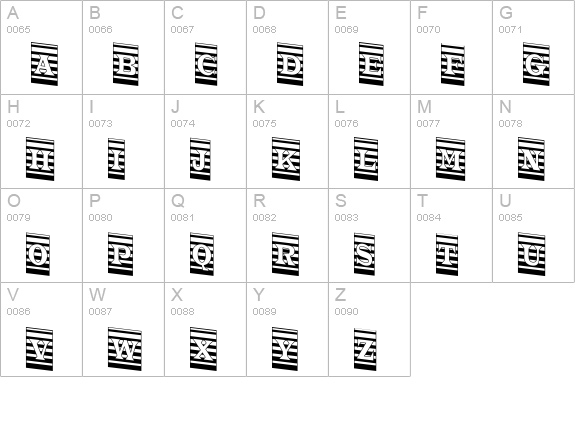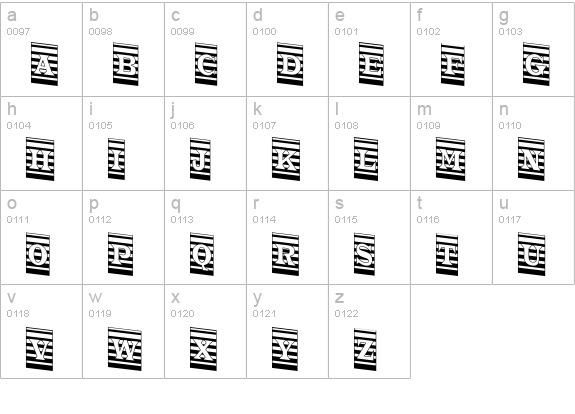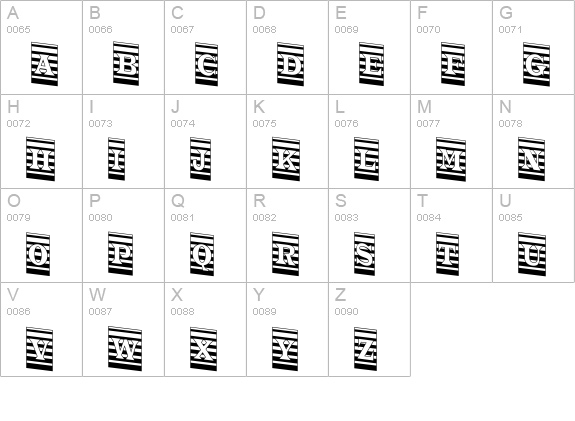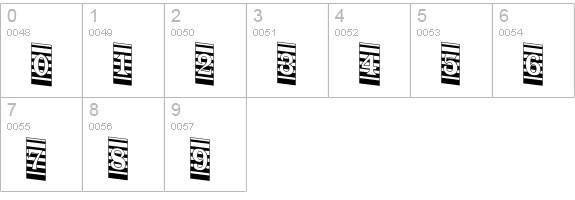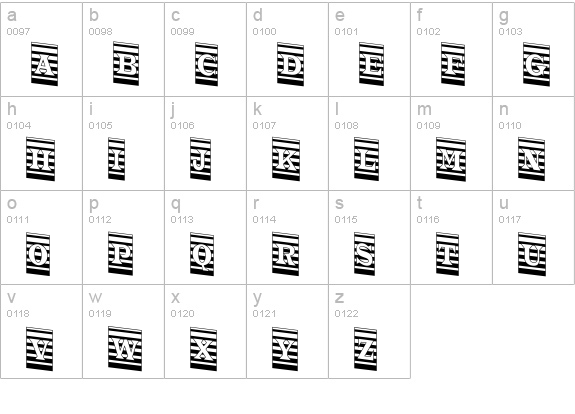
a_TrianglerCmMrDn Font Details
Introducing TrianglerCmMrDn, a sleek and modern font that will add a touch of sophistication to your designs. This unique typeface features sharp angles and clean lines, making it perfect for all your creative projects. Whether you're designing a logo, creating a poster, or working on a website, TrianglerCmMrDn will make your text stand out. What's even better is that this font is completely free! Yes, you read that right - you can download TrianglerCmMrDn at no cost from FontsMarket.com. With its bold and striking appearance, this font is sure to make a statement and elevate your designs to the next level. Don't miss out on this amazing opportunity to enhance your projects with the stylish TrianglerCmMrDn font. Download it today and let your creativity soar!